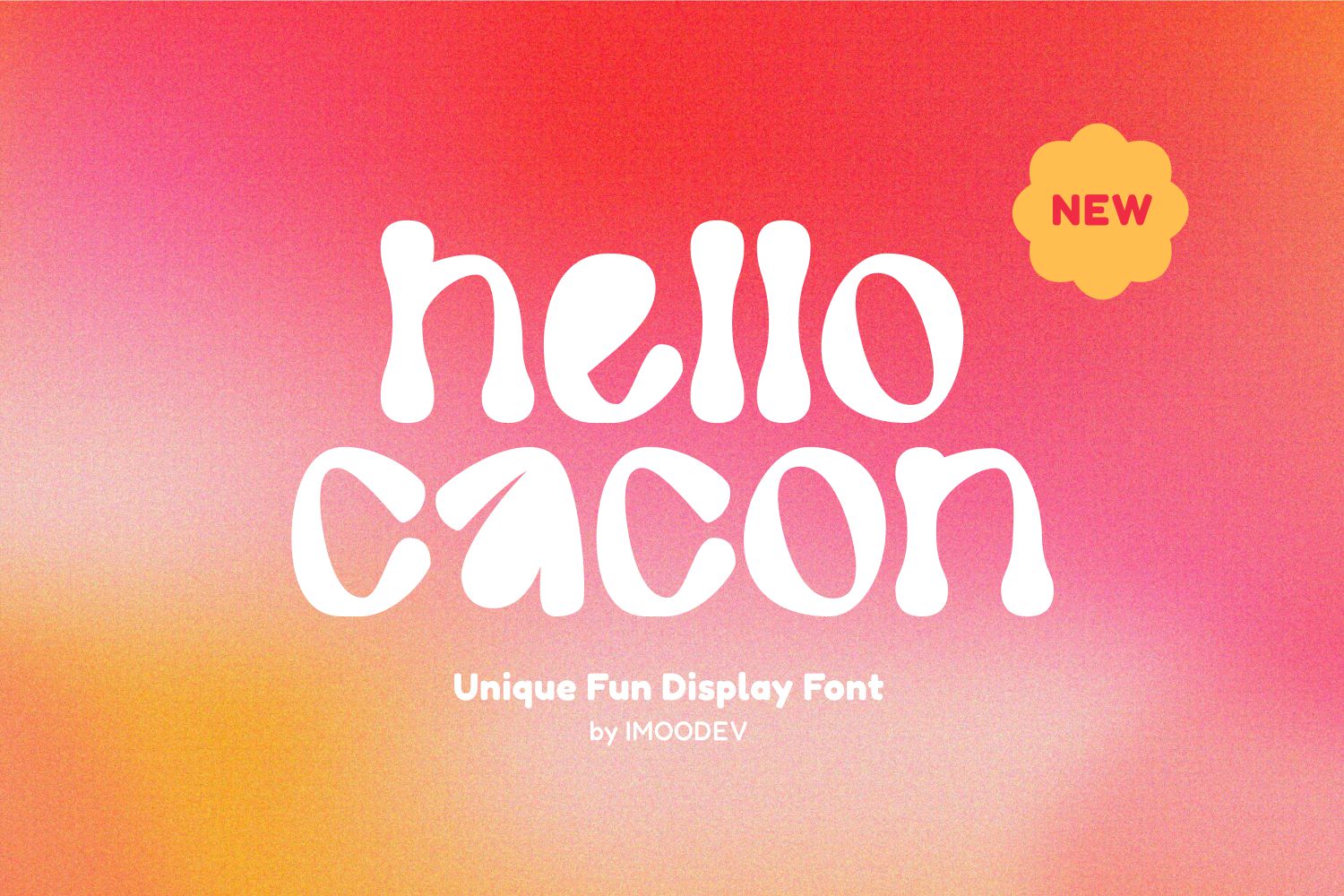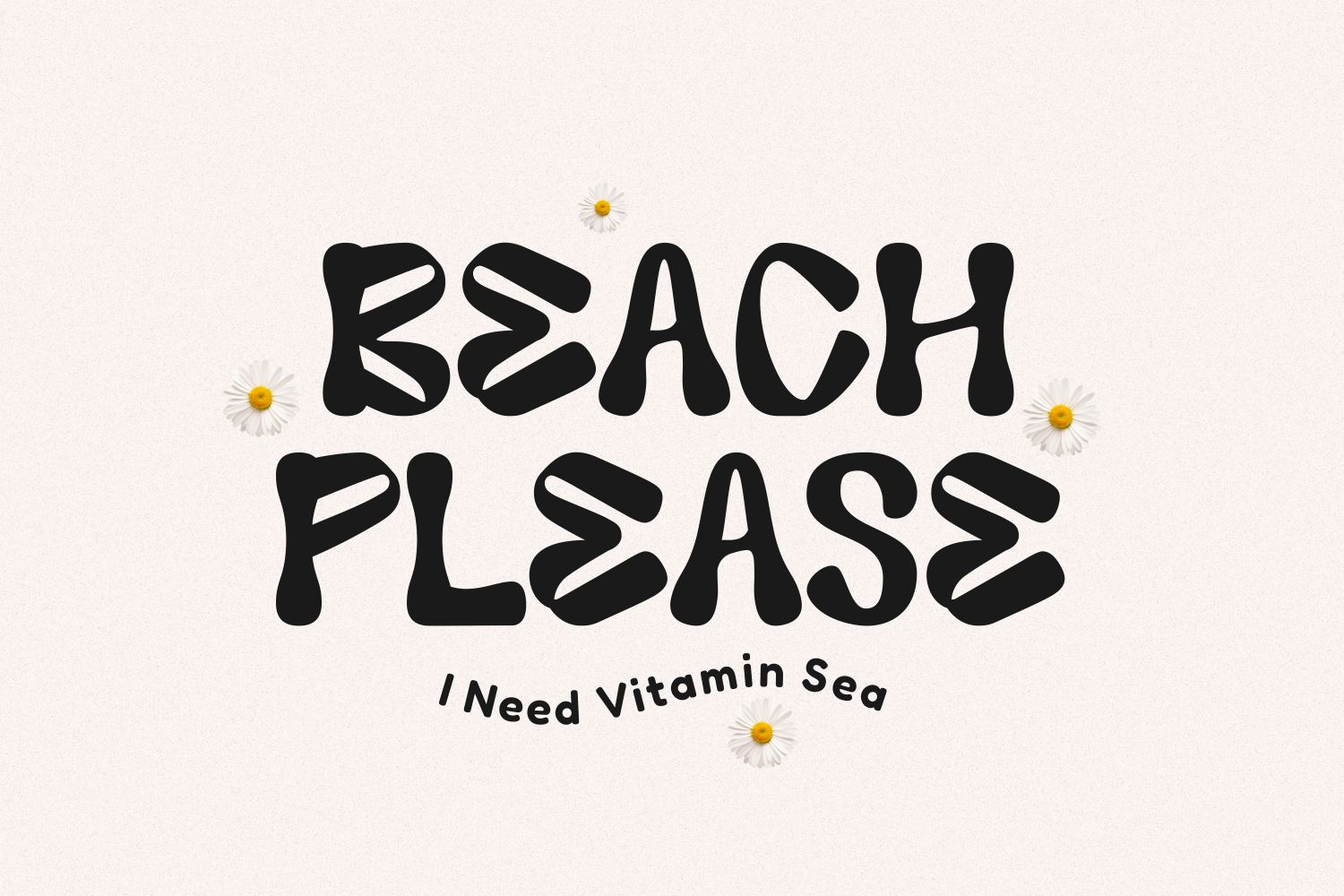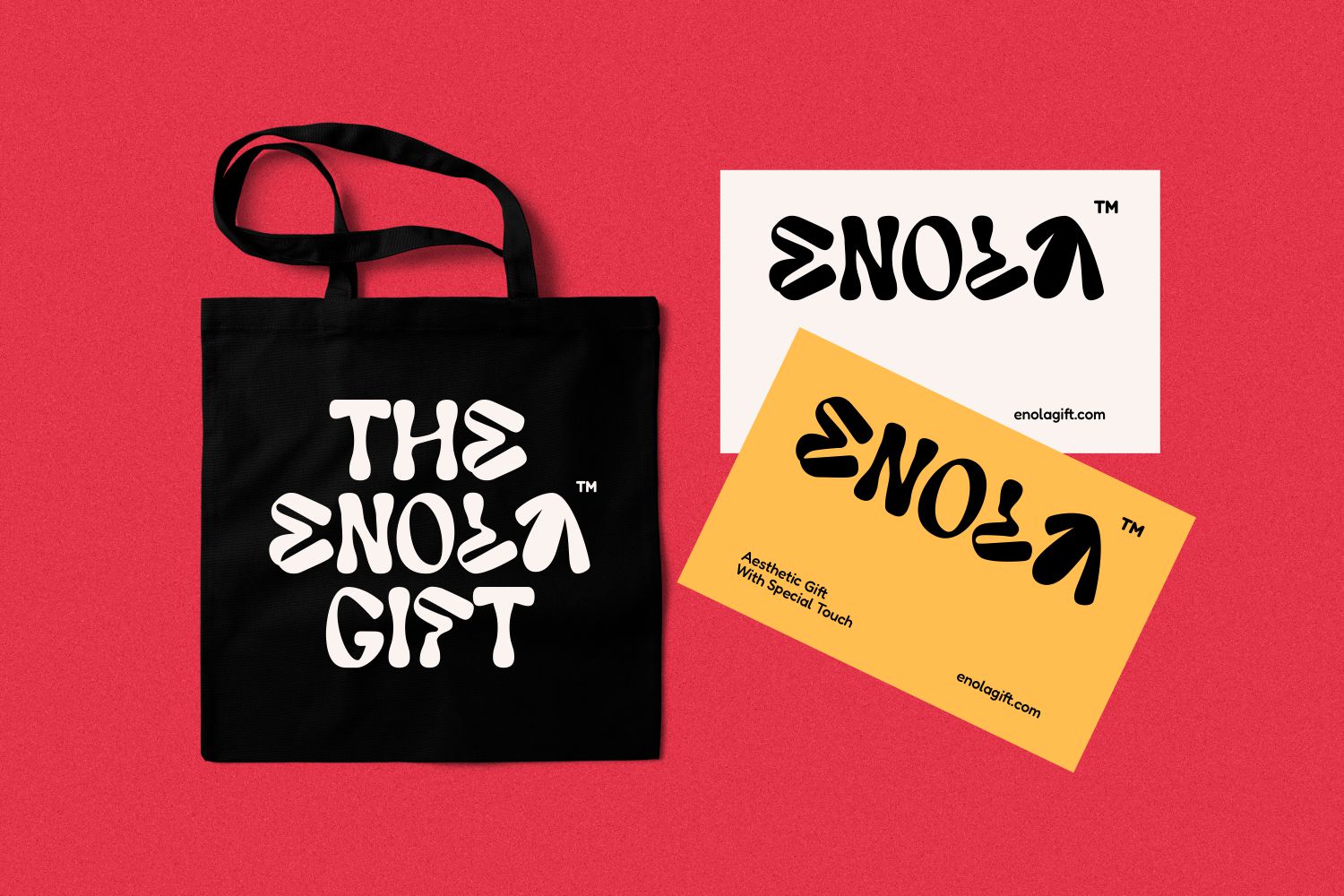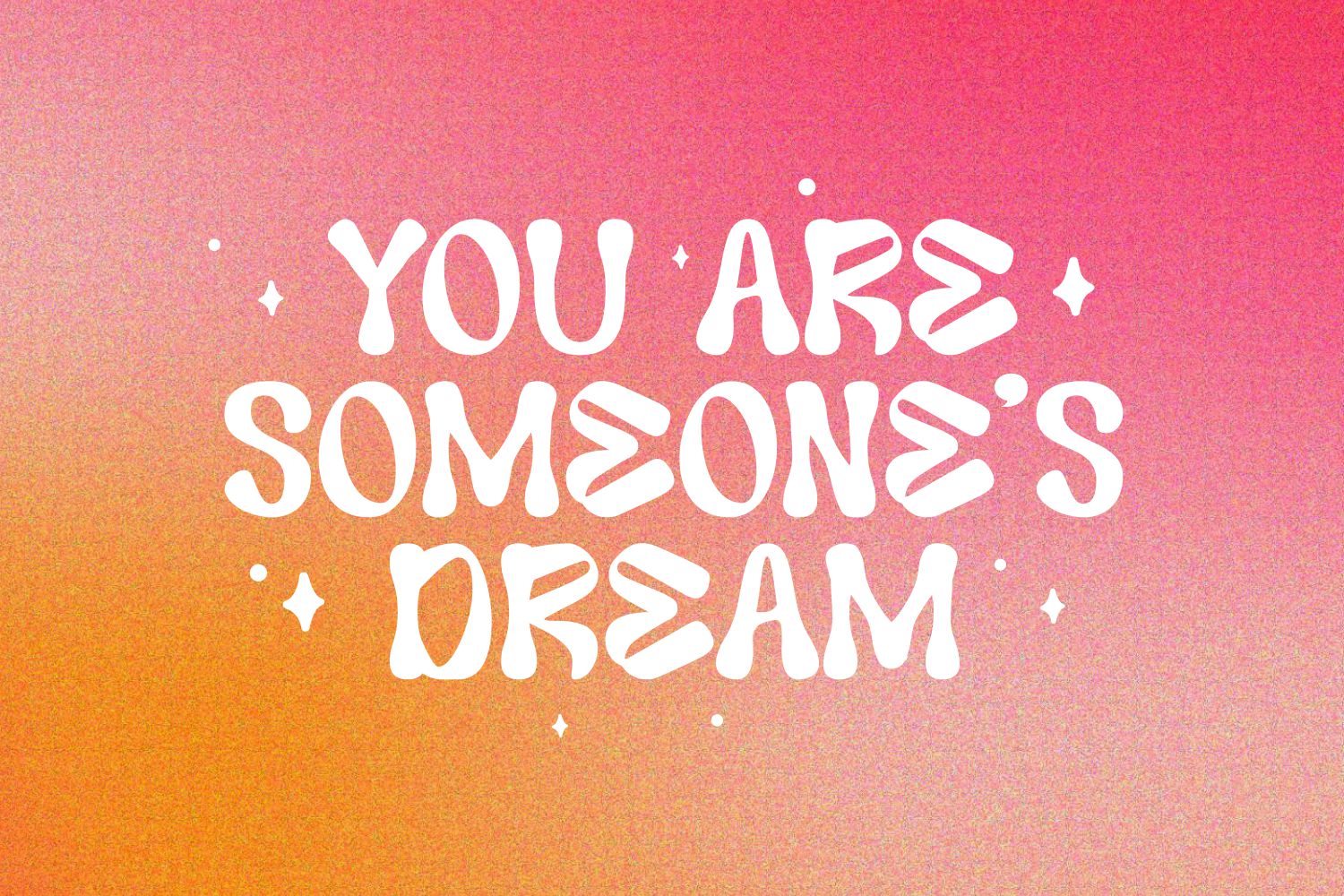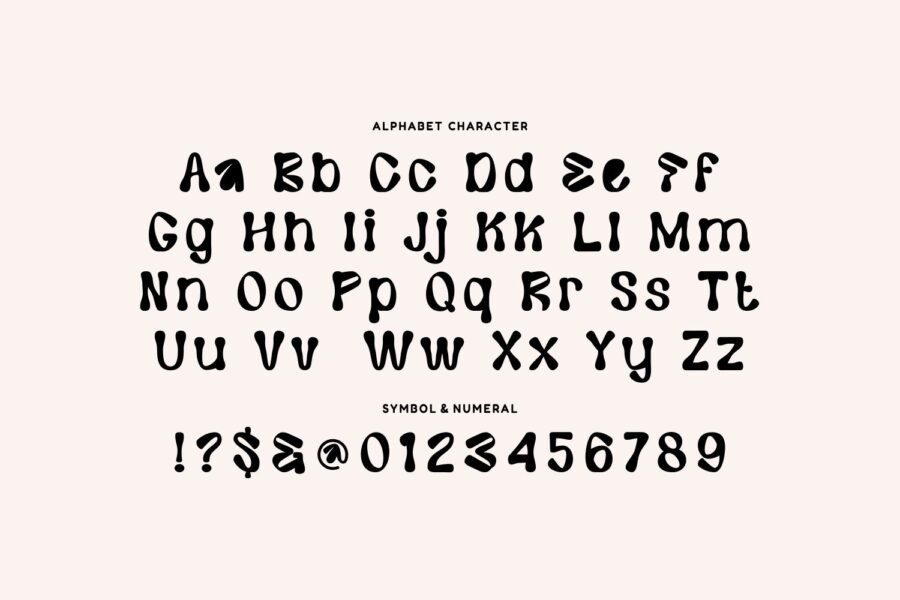
Hello Cacon font is a unique and fun display typeface with bold, organic shapes that radiate playful energy. Its wavy, fluid letterforms give it a quirky personality, making it ideal for creative projects that want to stand out with a youthful and cheerful vibe. Perfect for posters, packaging, apparel design, and social media graphics, Hello Cacon brings a refreshing twist to any layout.
Featuring uppercase, lowercase, numerals, punctuation, and multilingual support, Hello Cacon is versatile and easy to use across various platforms. Whether you’re designing summer-themed branding, groovy event posters, or playful product packaging, this font adds a funky and stylish touch that captures attention instantly.
Hello Cacon